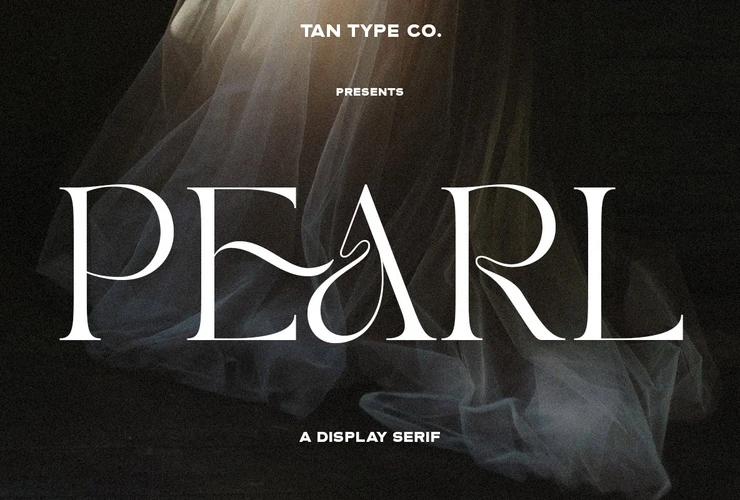
About TAN PEARL
TAN – PEARL is a playful yet elegant serif. It teases your eyes with its curves yet still able to maintain its classy composure. Perfect for anything your creativity takes you. 🙂